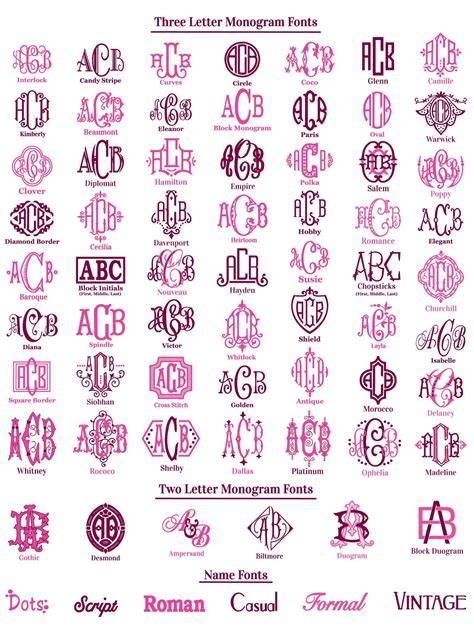
The Best Free Monogram Fonts For 2023
A monogram is a single graphic design composed of two or more letters or symbols, typically interwoven together to create a unique logo or image. Monograms are often used as logos, company seals, and even as decorative elements on items such as clothing, jewelry, and stationery. Monograms can be used to create a unique and personalized look for any occasion. But finding the perfect monogram font can be a daunting task.
Thankfully, there are a variety of free monogram fonts available online that are sure to give your project the perfect look. Whether you’re looking for something classic and timeless or something more modern and stylish, there’s sure to be a monogram font that meets your needs. We’ve compiled a list of the best free monogram fonts for 2023 to get you started.
1. Monogram KK
Monogram KK is an elegant and classic font that features both upper and lower case lettering. The font has a sophisticated feel, making it perfect for use in wedding invitations, logos, and other formal applications. The font is free for personal use and can be downloaded in both TrueType and OpenType formats.
2. Monogram Font
Monogram Font is a playful and whimsical font that is perfect for creating a cheerful and lighthearted atmosphere. The font features upper and lower case lettering and is available in both TrueType and OpenType formats. Monogram Font is free for personal use and is a great choice for projects such as birthday cards, scrapbooks, and other creative endeavors.
3. Monogramma
Monogramma is a bold and modern font that features both upper and lower case lettering. The font is great for creating a contemporary and stylish look and can be used for a variety of projects, including logos, business cards, and other branding materials. Monogramma is free for personal use and can be downloaded in both TrueType and OpenType formats.
4. Monogram Wizard
Monogram Wizard is a great option for those who need to create a custom monogram quickly and easily. The font features a user-friendly interface that lets you create a unique monogram in minutes. Monogram Wizard is free for personal use and is a great choice for projects such as t-shirts, mugs, and other personalized items.
5. Monogram Generator
Monogram Generator is a powerful online tool that allows you to quickly and easily create a custom monogram. The generator has a wide selection of fonts and images to choose from and is free for personal use. Monogram Generator is a great choice for projects such as wedding invitations, business cards, and other branding materials.